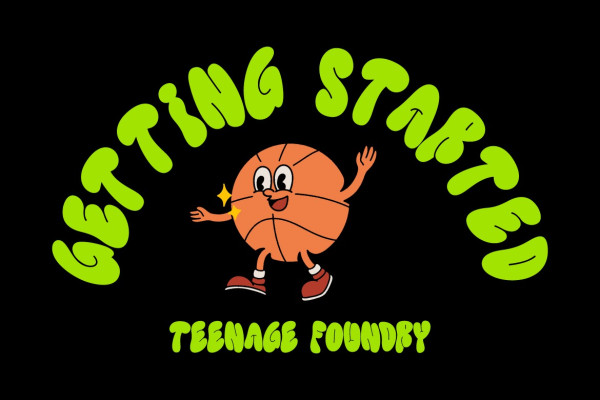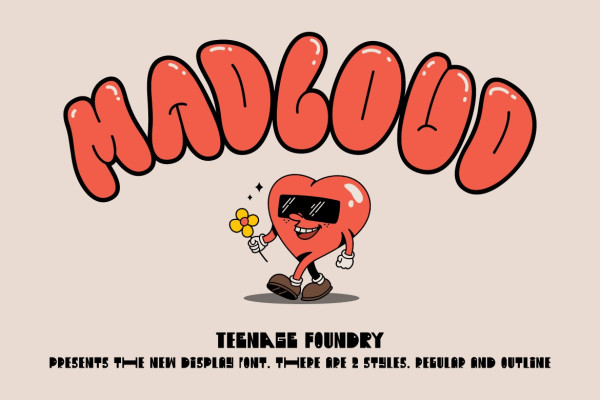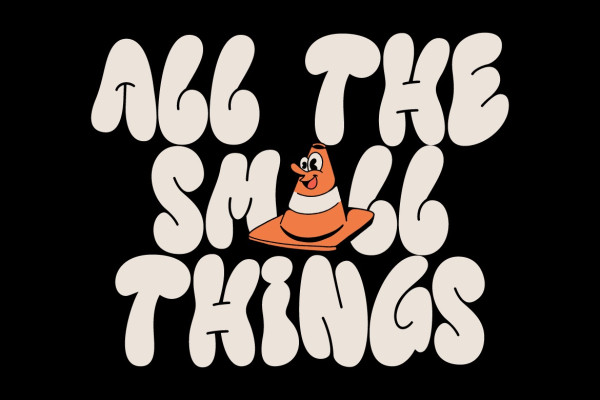
TF Madloud Font
TF Madloud Font, This bold and playful graffiti font is perfect for any project that needs an eye-catching touch. Its thick, rounded letters will grab attention and communicate a fun, carefree vibe. The hand-drawn style of this font gives it a unique, personal touch that sets it apart from more standard typefaces. With both regular and outline versions, you can use this font in a variety of ways to suit your needs. And to sweeten the deal, we’ve even included 5 illustrations to help spark your creativity and add some extra flair to your designs.